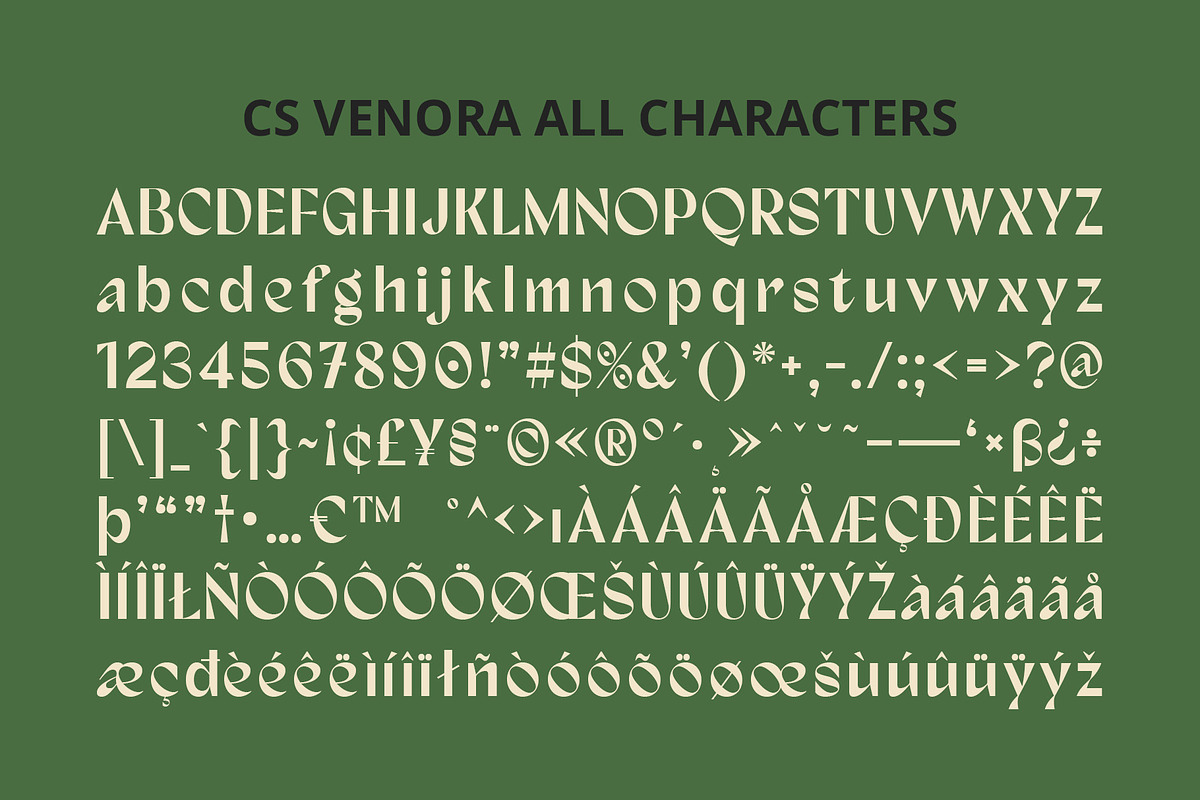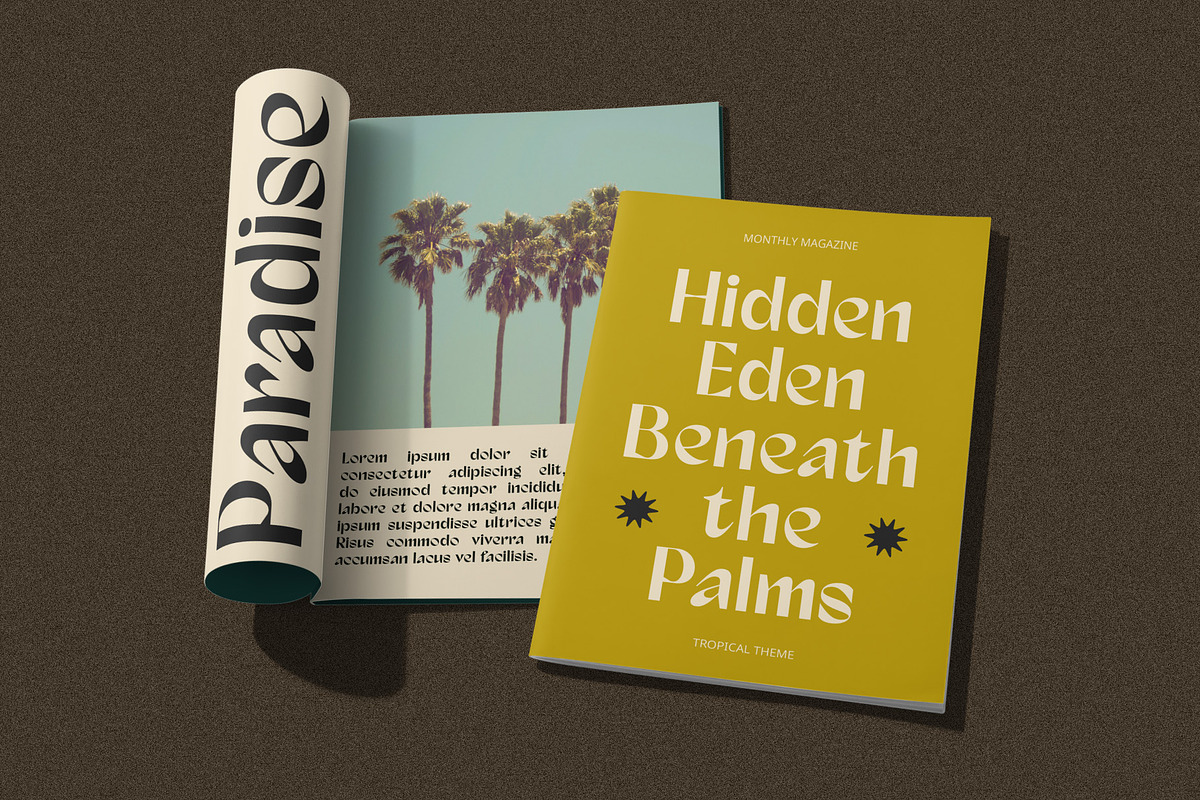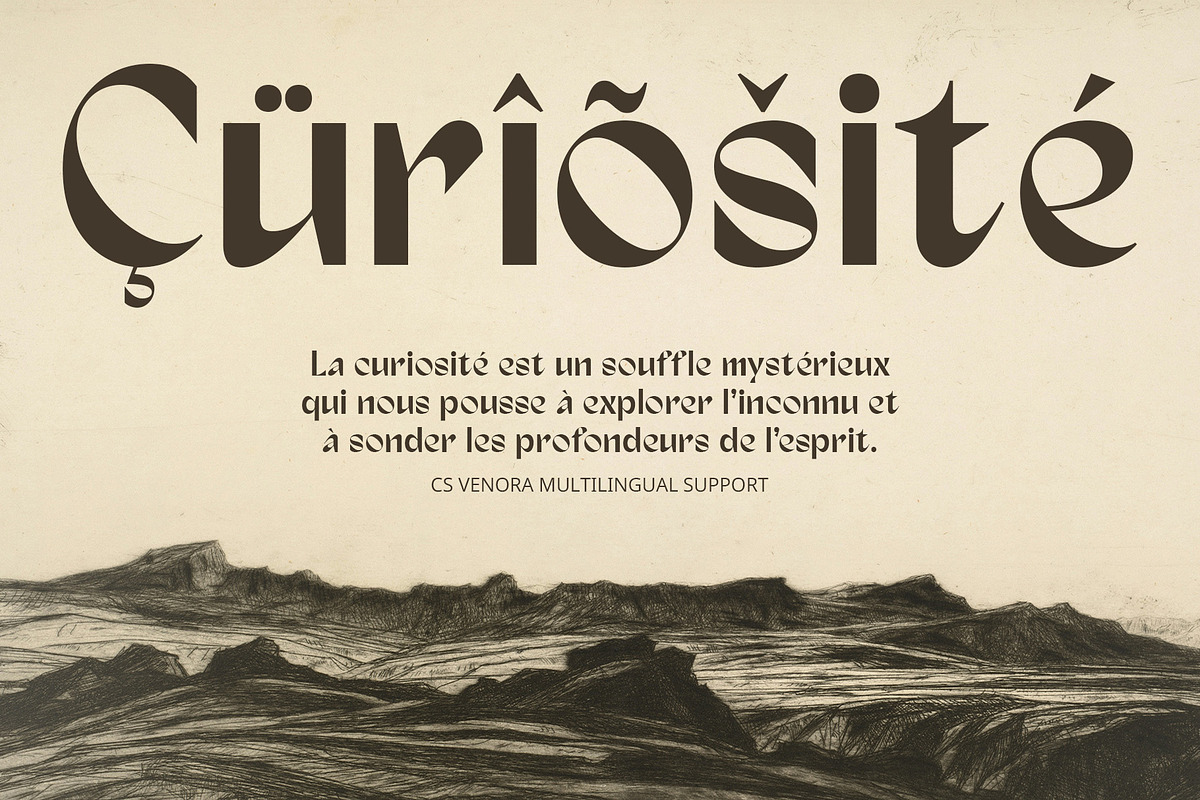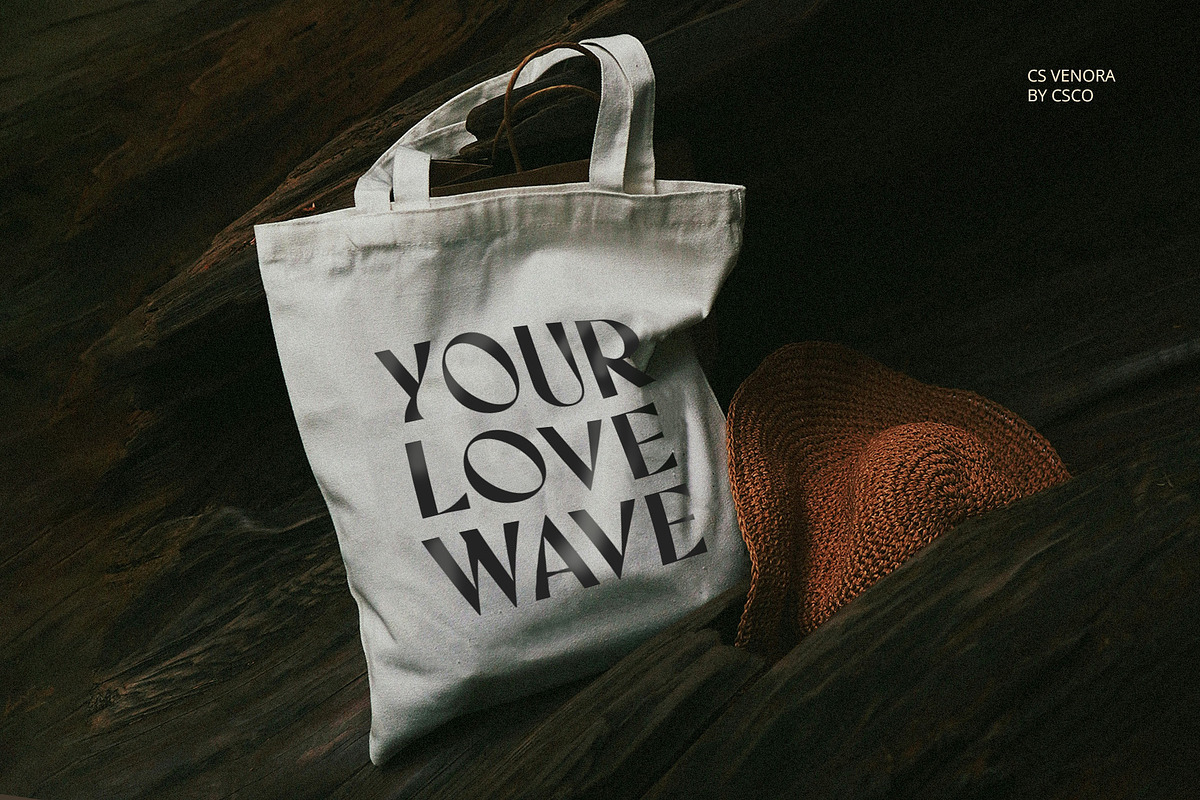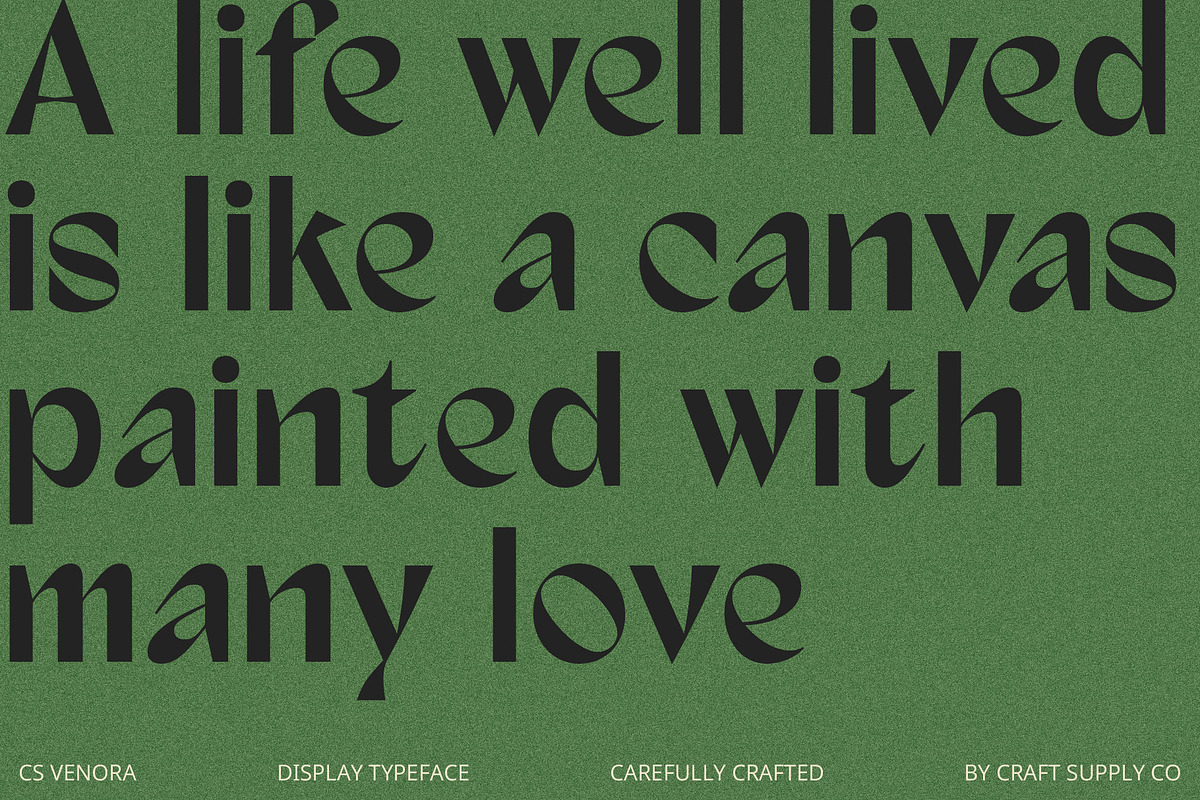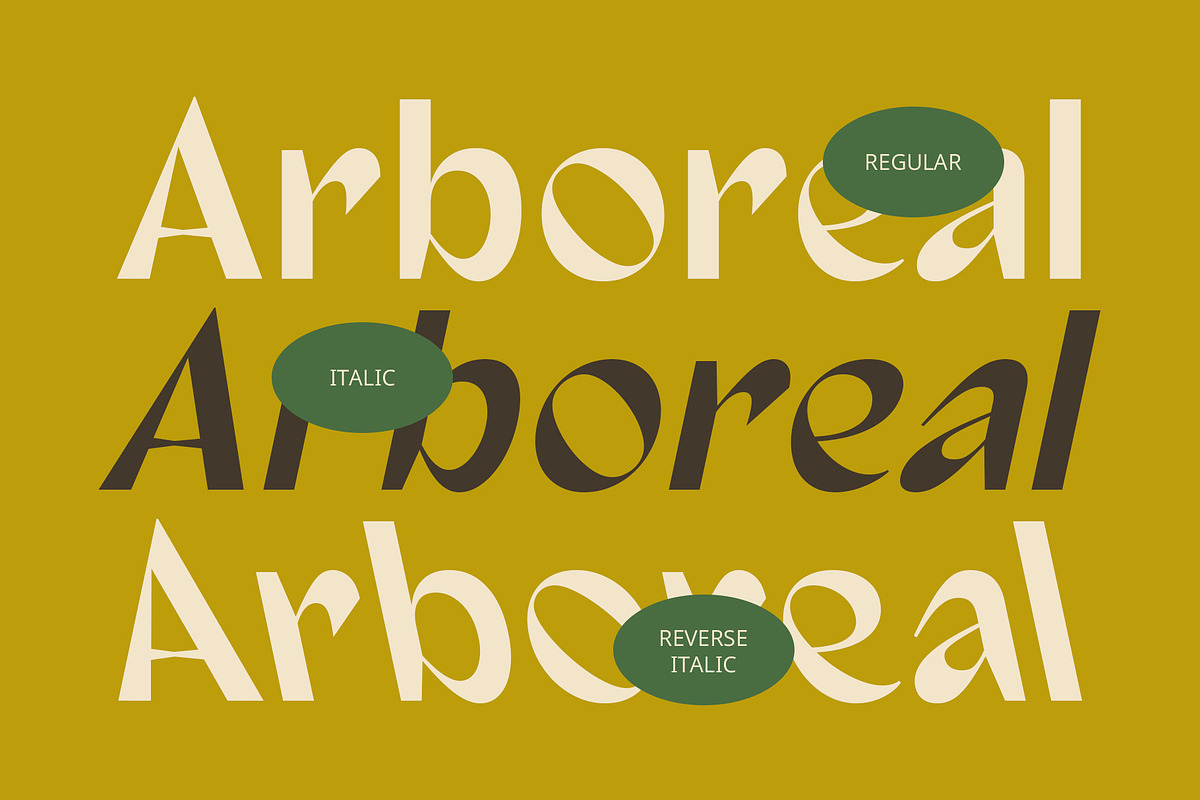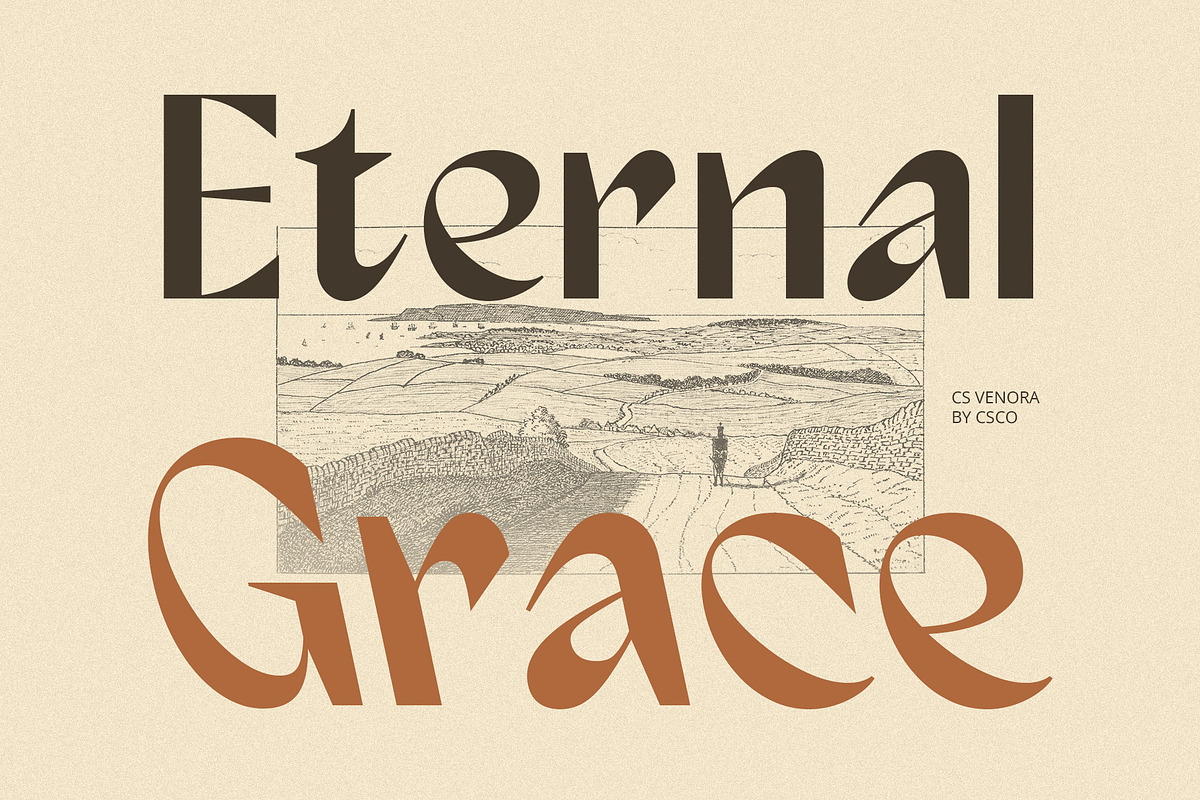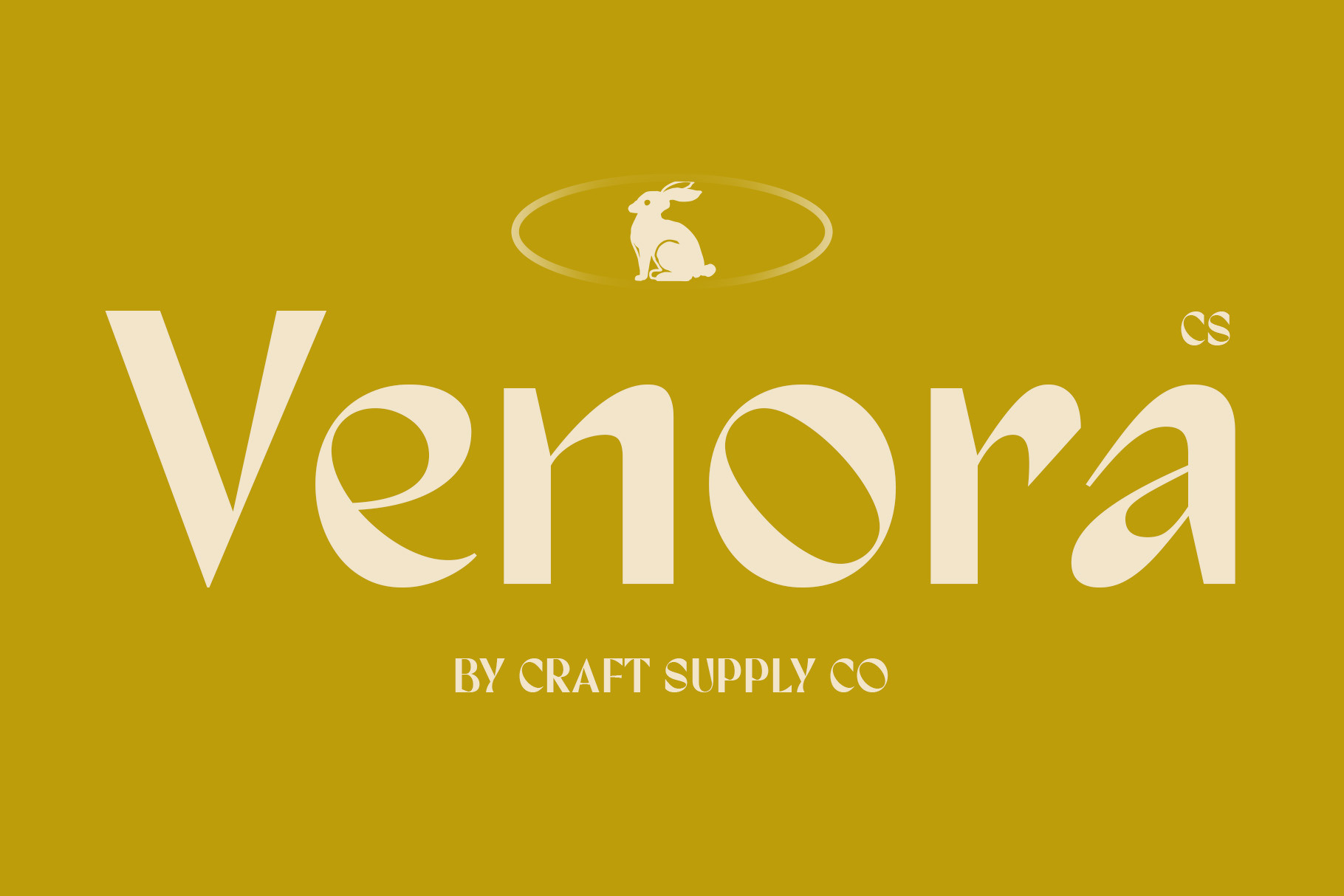
CS Venora – Classic Font
CS Venora – Classic Font: A Modern Twist on Retro Elegance
Classic Sans Serif Retro Font CS Venora is a classic sans serif retro font that beautifully marries modern minimalism with nostalgic charm. By eliminating serif elements, this font presents a clean and straightforward shape, making it an ideal choice for contemporary design aesthetics. Its balanced proportions and smooth lines create a visually pleasing appearance, offering a fresh take on mid-20th-century typography.
Distinctive Characteristics of CS Venora What sets CS Venora apart is its distinctive geometric shapes and open letter spacing. These features not only enhance readability but also evoke a sense of nostalgia, reminiscent of the elegant design trends from the past. The font’s simple yet sophisticated structure allows it to stand out in a variety of applications, making it versatile for any design project.
Versatile Applications for Vintage Atmosphere CS Venora is exceptionally well-suited for design applications that aim to establish a vintage atmosphere while maintaining a modern flair. Whether used in posters, logos, or product packaging, this font injects a classic yet fresh touch that appeals to a wide audience. Its retro vibe makes it perfect for branding initiatives that want to convey a sense of authenticity and timelessness.
- CS Venora Regular
- CS Venora Italic
- CS Venora Reverse Italic